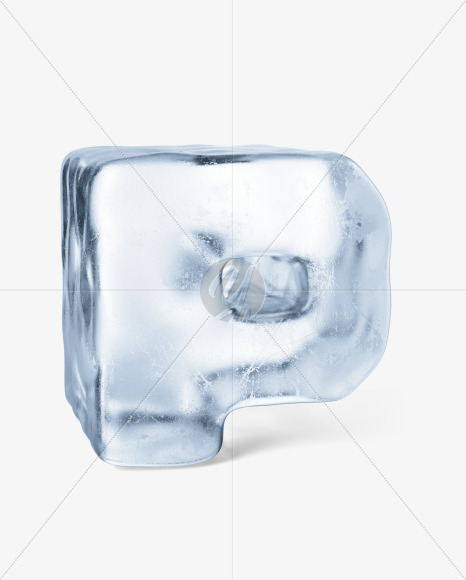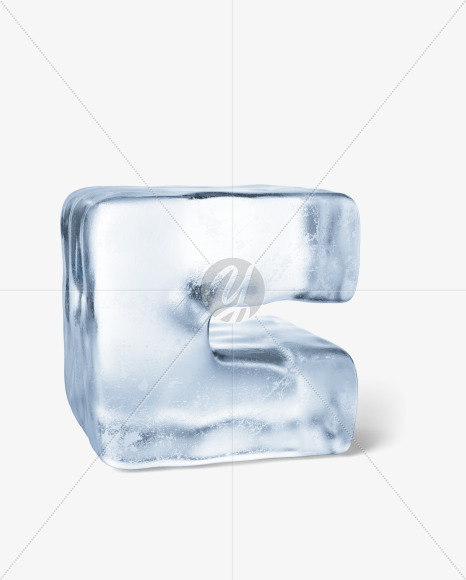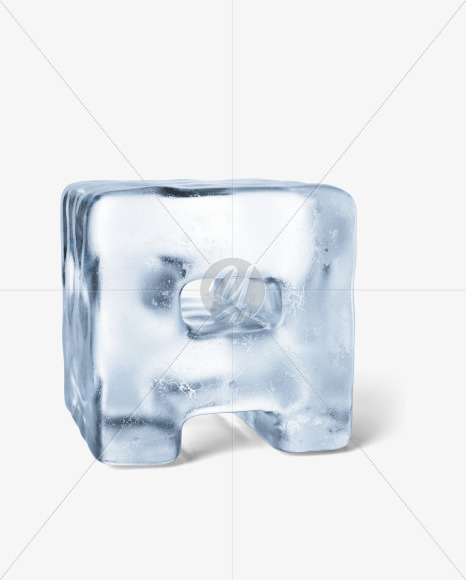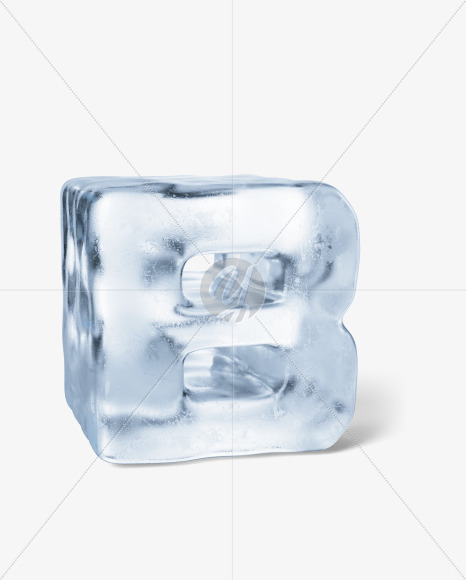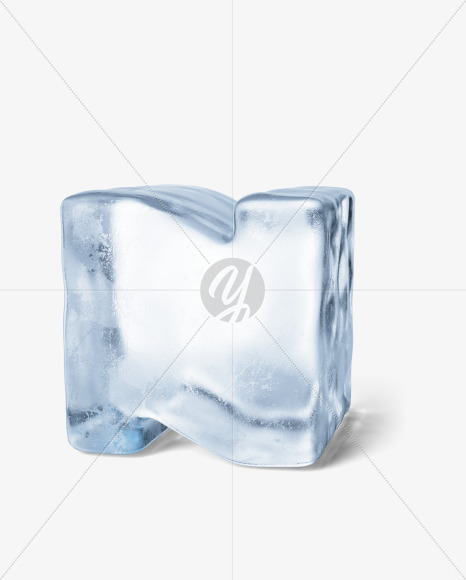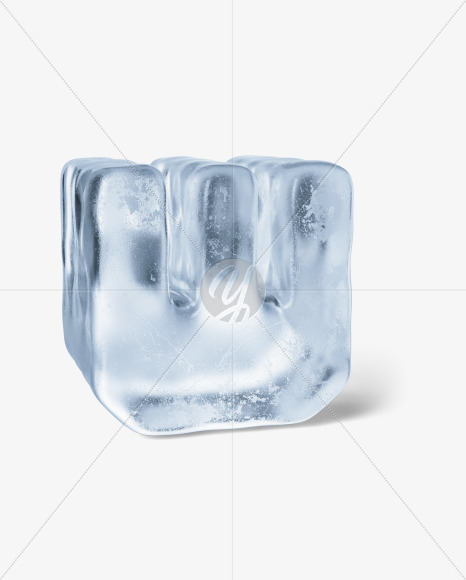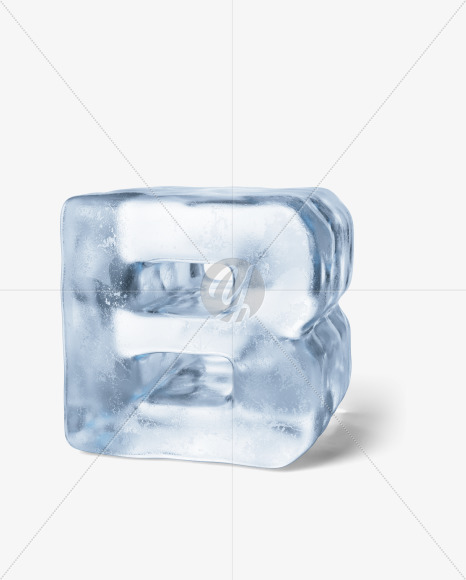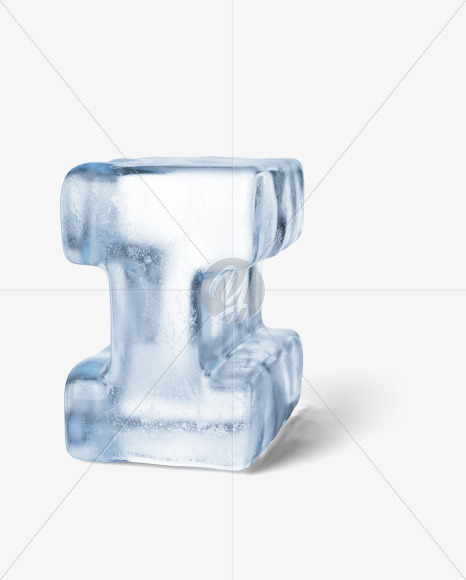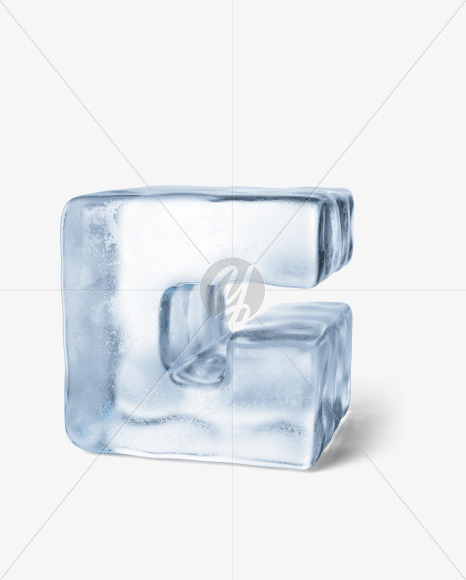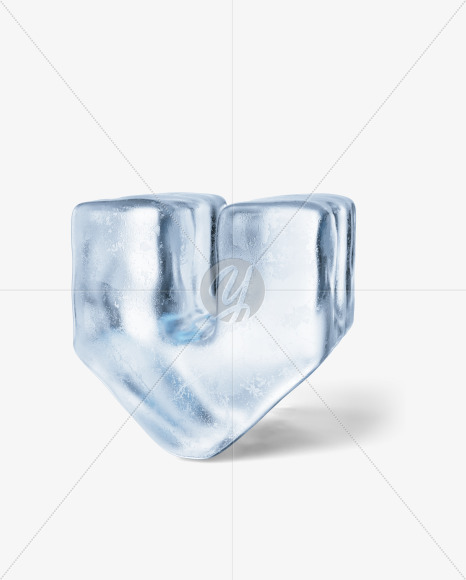
Hi, Introducing a set of 3d rendered letters stylized as an ice cube. This set contains two variations of each letter of the English alphabet (totally 52 files). All PNG files has resolution 2000x2000px, transparent background. Also, a water drop file is included.